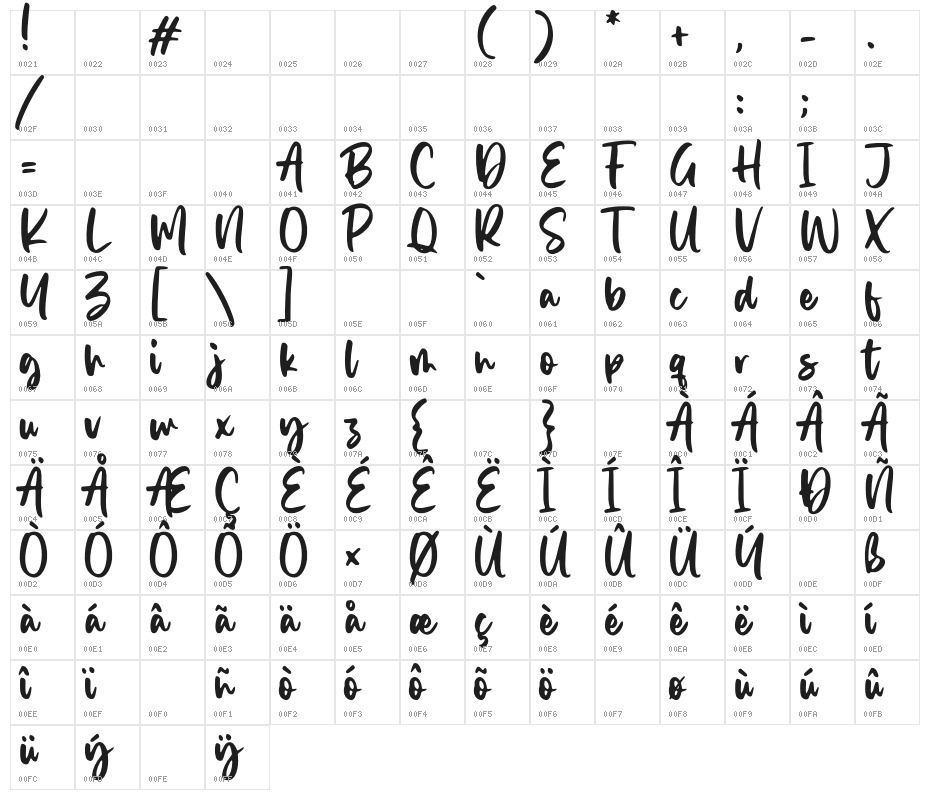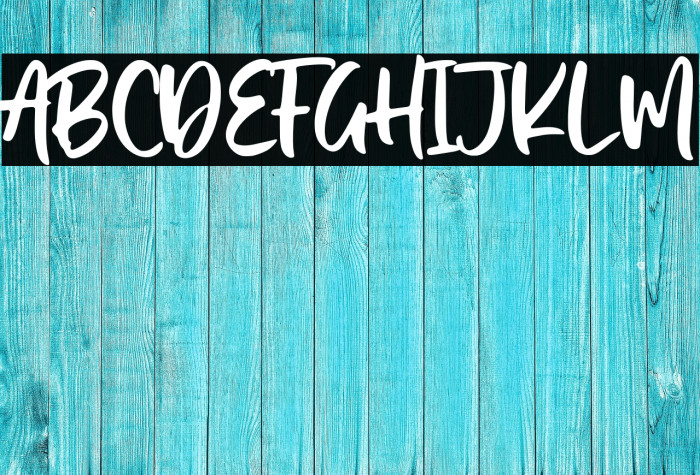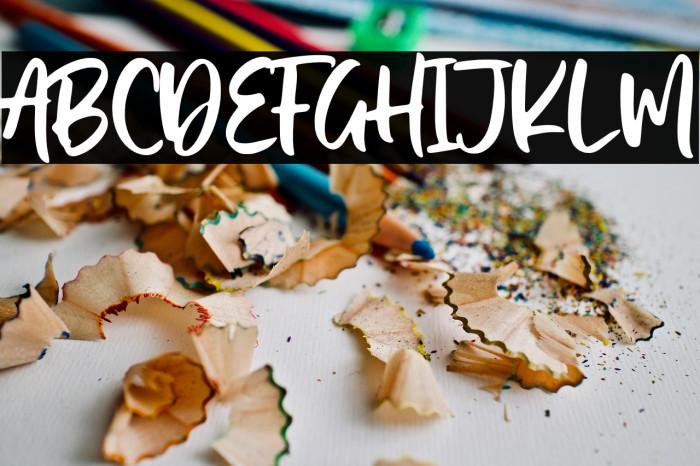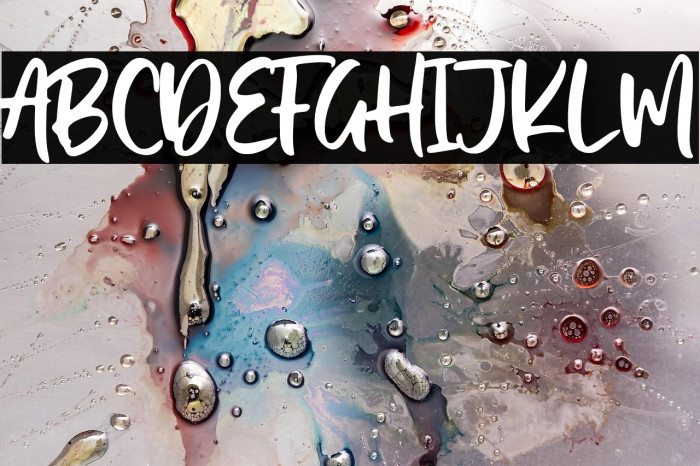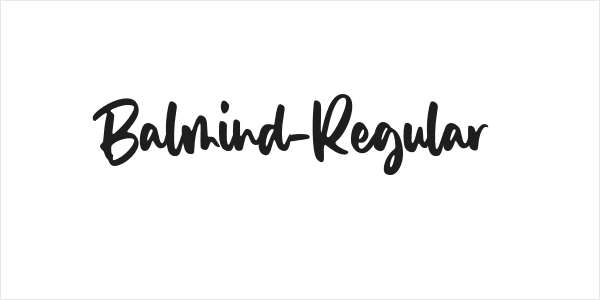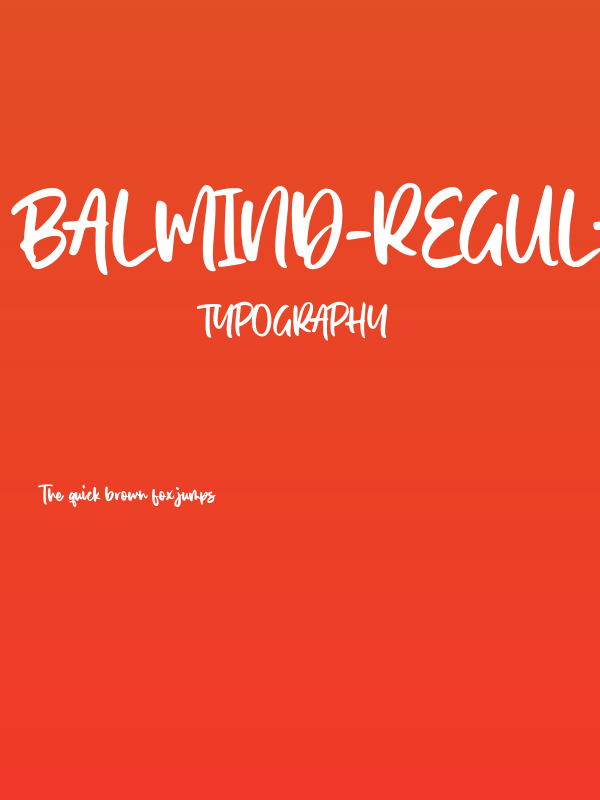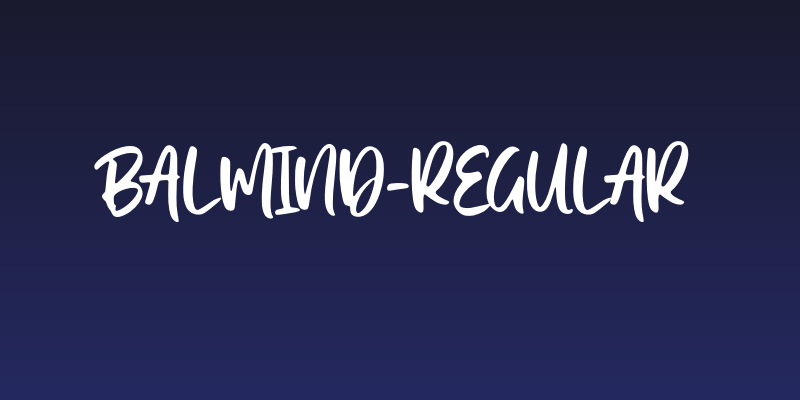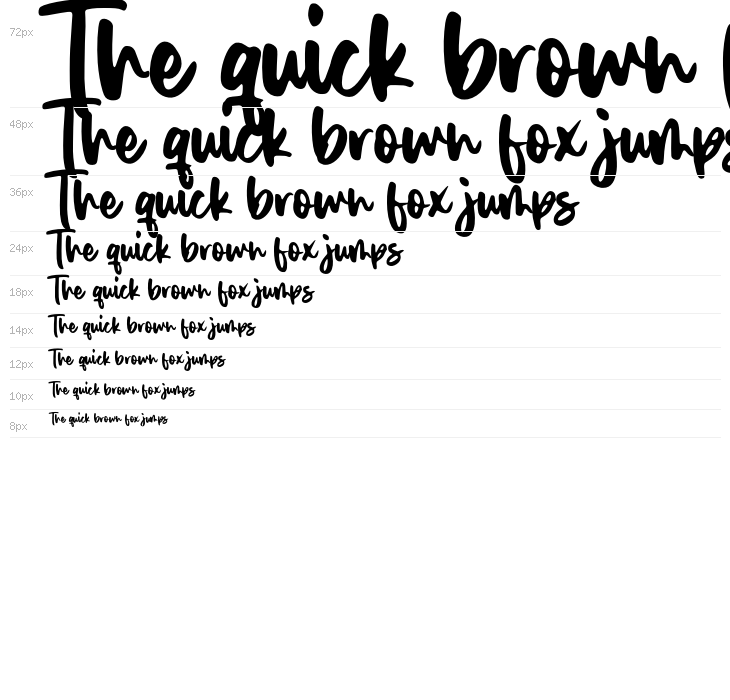
Balmind-Regular Font
Balmind-Regular Description
This font features a bold, handwritten style with a playful and energetic feel. The letters are characterized by their thick strokes and fluid, cursive-like connections, giving it a lively and informal appearance. The uppercase letters maintain a consistent height, while the lowercase letters exhibit a slight slant, enhancing the dynamic flow. The numbers and special characters are crafted with the same boldness and flair, ensuring a cohesive look across all elements. This font's distinctive style makes it ideal for projects that require a personal touch or a sense of spontaneity.
| Use Case | Logos, Headlines, Posters |
| Proposed Projects | Ideal for greeting cards, invitations, posters, and social media graphics. |